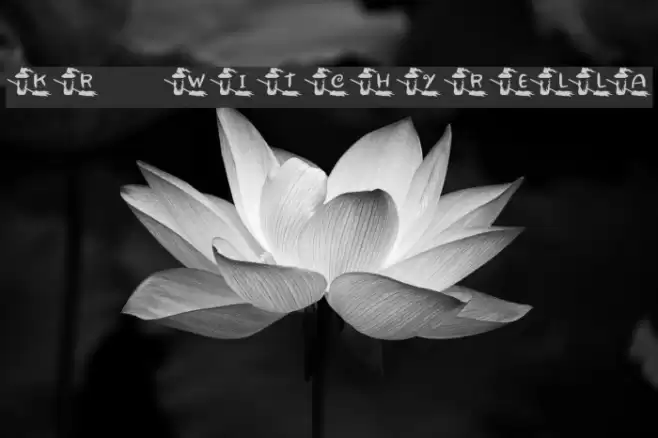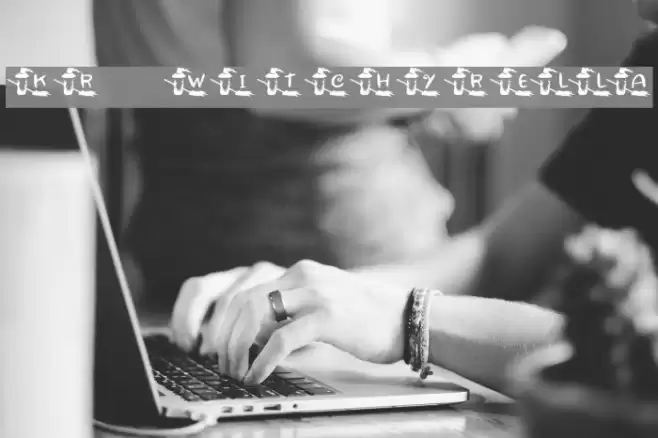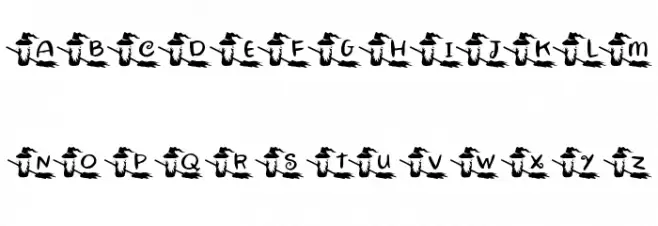
KR Witchyrella Font
KR Witchyrella Description
This font features a whimsical and decorative style, incorporating elements of fantasy and magic. Each character is adorned with a witch's hat, adding a playful and thematic touch. The letters are bold and distinct, with a consistent design that emphasizes the magical theme. The font is highly decorative, making it suitable for projects that require a touch of fantasy or a Halloween theme. The characters are evenly spaced, ensuring readability despite the intricate design elements. This font is perfect for creative projects that aim to capture a mystical or enchanting atmosphere.
A whimsical, decorative font with witch-themed elements from Uncategorized fonts.
- Proposed Projects: Ideal for Halloween invitations, fantasy-themed posters, and magical storybook covers.